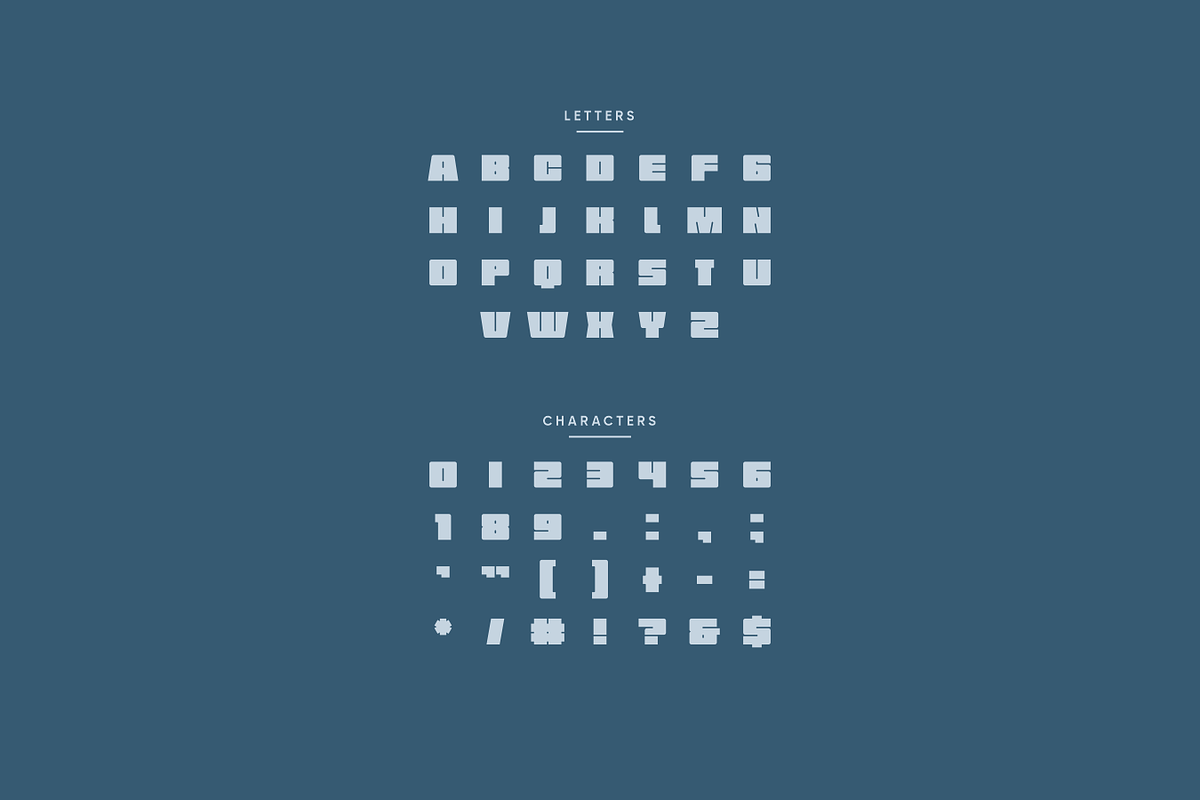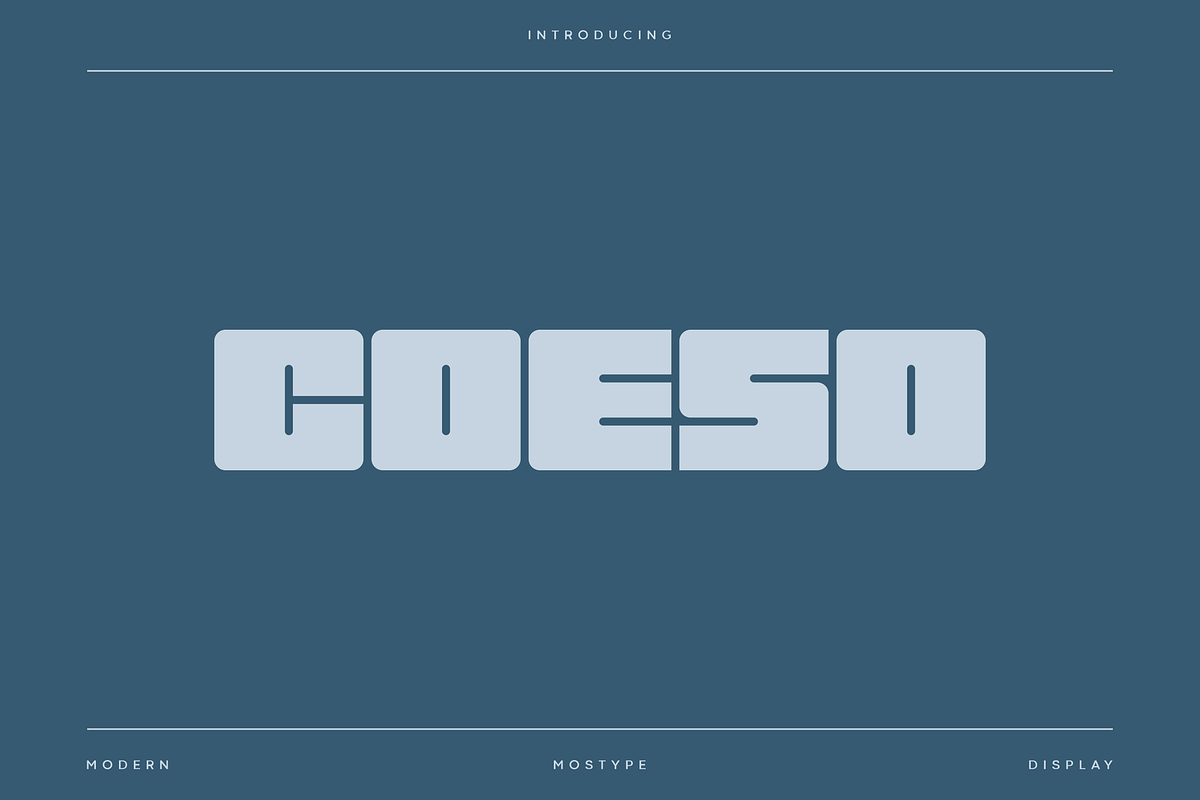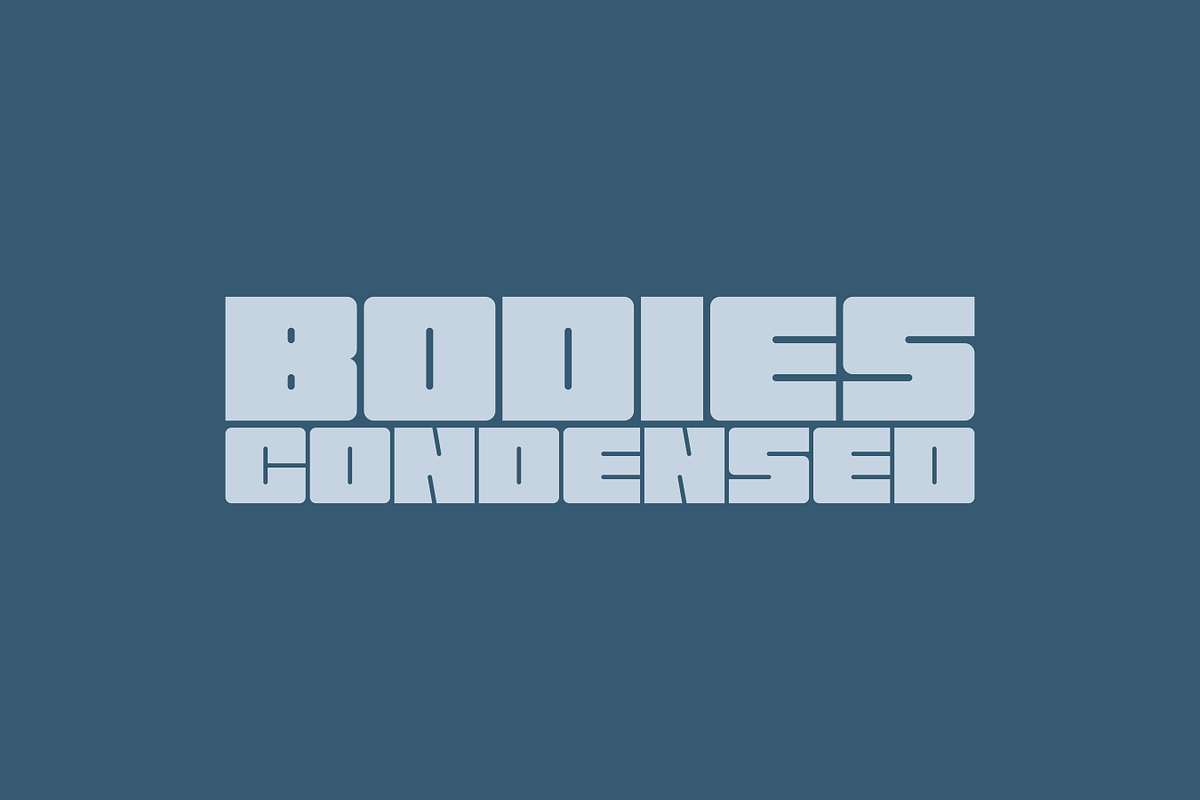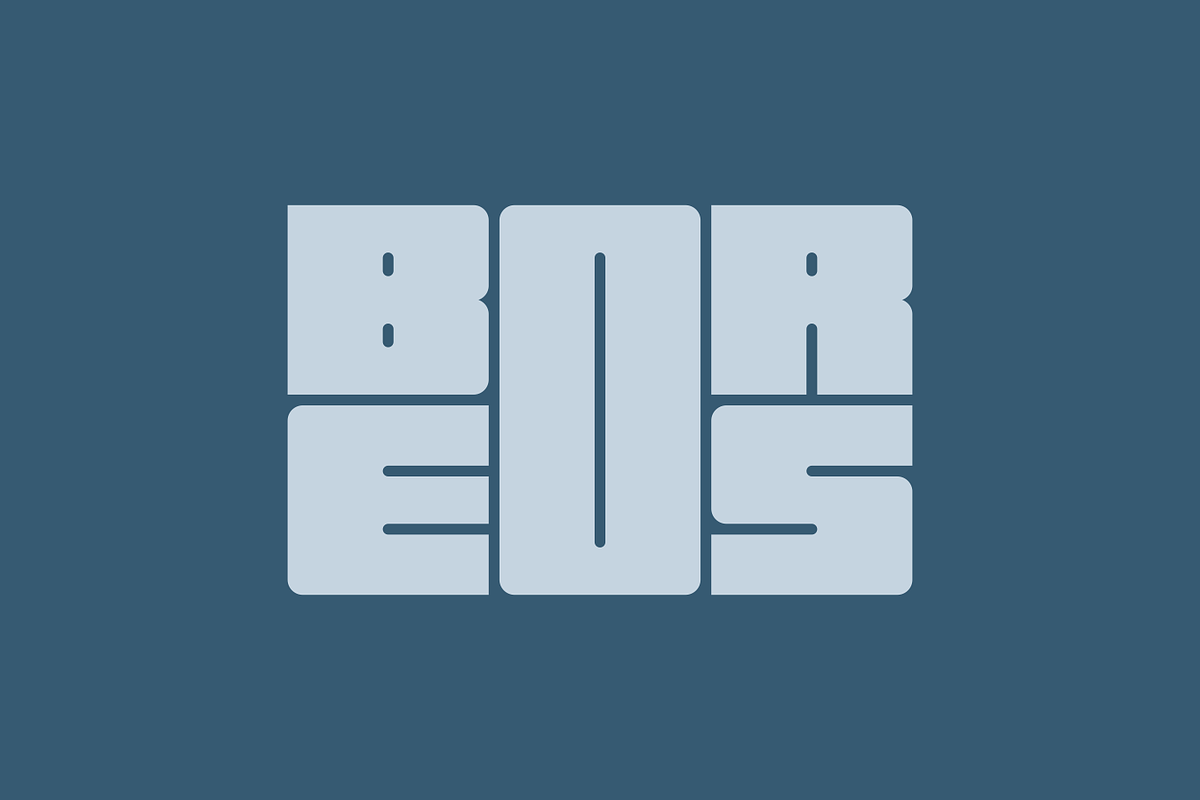
Coeso - Modern Condensed Typeface
Coeso is a display font with bold and modern characteristics, suitable for your designs that require a strong, firm, clear design but still look modern, friendly and not stiff. This font created with the vision of to attract the audience to your brand, so this font will be ready to support your amazing designs. Coeso is created with all the tasks of a corporate font and also for the usage in a variety of projects, including branding, logos, titles, headlines, servers, posters, screens, display, digital ads, and everything else.
- Punctuation & Number